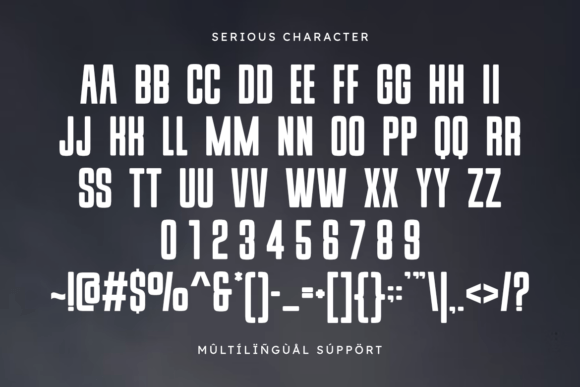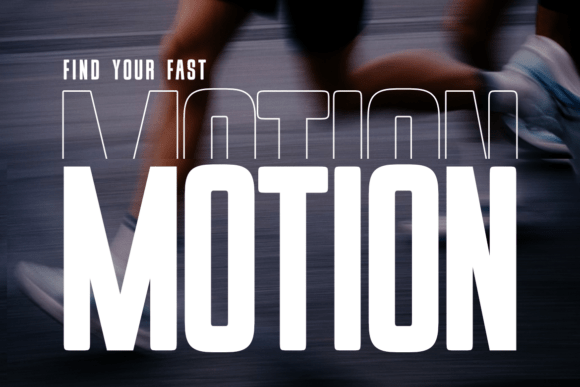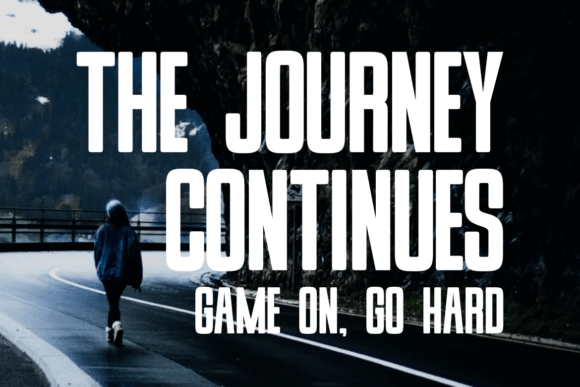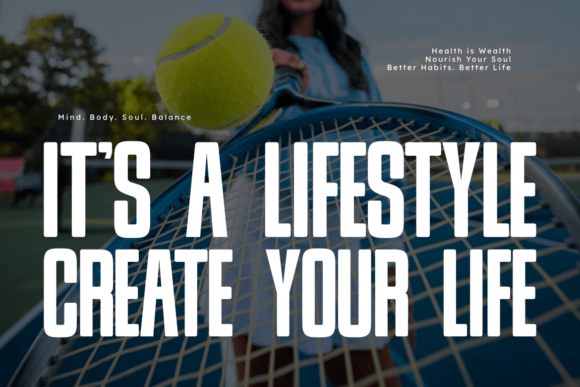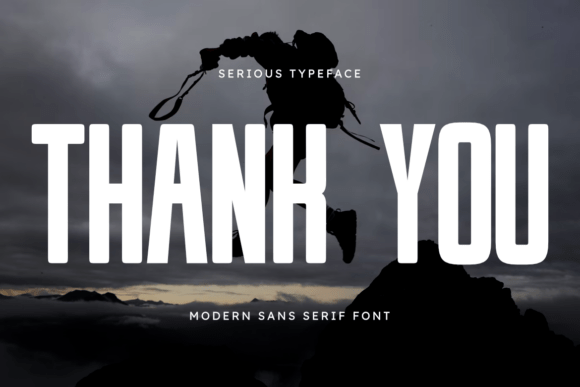
Introduction to Serious Font
Have you ever been working on a project, staring at a blank canvas, and suddenly the idea hits you? The design starts to come together, and you know exactly what you need to make it pop. For me, it was a bold, condensed font that screamed ‘confidence’ and ‘power’. That’s when I stumbled upon the Serious Font, and I knew I had found my missing piece.
As designers, we’re always on the lookout for that one design resource that elevates our creative project from good to great. The Serious Font is that game-changer. Its clean structure and smooth curves make every word stand out, perfect for titles, posters, and editorial projects. Whether you’re looking for a high-quality font for your next branding project or a free download to spice up your sports-themed design, the Serious Font is a valuable addition to any designer’s toolkit.
Key Features of Serious Font
- High-quality design: Serious Font is a premium font designed for creative projects, ensuring a professional and sophisticated look.
- Large character set: The font includes a large character set, covering a wide range of languages and characters, making it suitable for international creative projects.
Honest Review: Serious Font
As a designer, I’m always on the lookout for high-quality design resources to elevate my creative projects. Recently, I had the chance to try out the Serious Font, and here’s my honest review.
What works well: ✨ The Serious Font is incredibly versatile, suitable for a wide range of creative projects, from brochures to websites. Its clean and modern design makes it a great choice for anyone looking for a professional look. I also appreciated the free download option, which is always a bonus. The font is also available in a transparent background, making it easy to use with any design.
- Versatile for various creative projects
However, I did notice a few limitations: ⚠️ The font selection is somewhat limited, and I wish there were more options to choose from. Additionally, the font might not be suitable for projects that require a more playful or whimsical tone.
Overall, I was impressed with the Serious Font. It’s a solid choice for designers looking for a high-quality, professional font. While it may not be perfect, it’s definitely worth considering for your next creative project.
Tips for Getting the Most Out of Serious Font
For optimal results, use Serious Font in conjunction with a clear and concise message. Experiment with different font sizes, colors, and arrangements to create visually appealing designs.
Serious Font is ideal for:
- Business cards and letterheads.
- Marketing materials and brochures.
- Presentations and reports.
Is Serious Font suitable for large-scale designs?
Yes, Serious Font is designed to be scalable and suitable for large-scale designs. Its high-quality vector format ensures crisp and clear rendering even at large sizes, making it an ideal choice for creative projects that require a professional look.